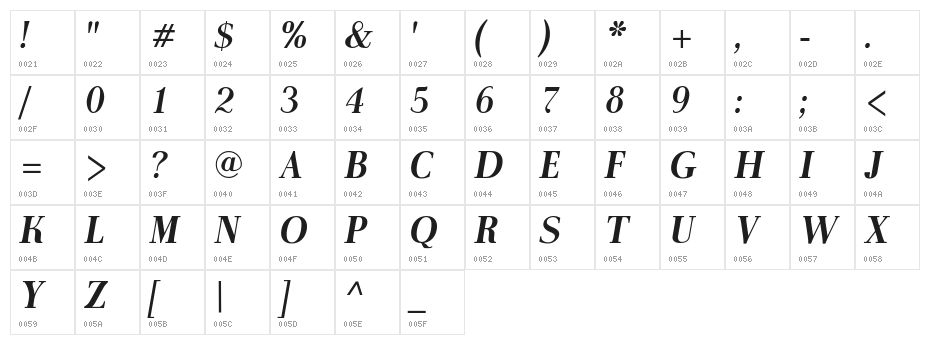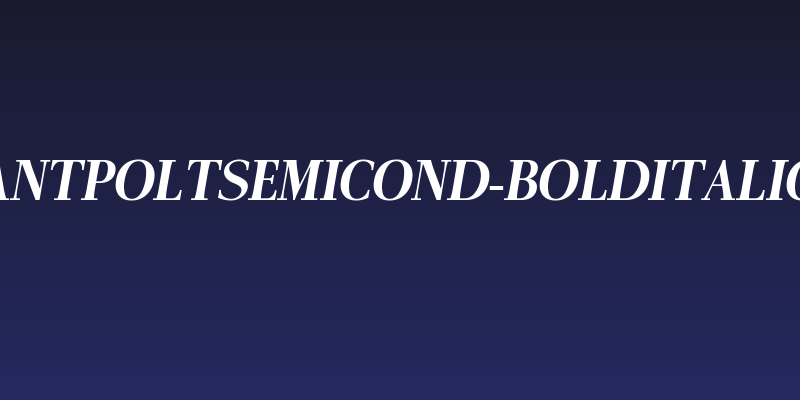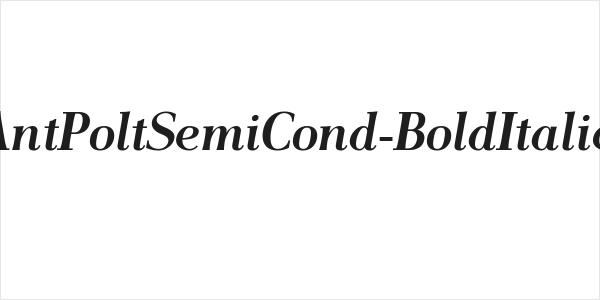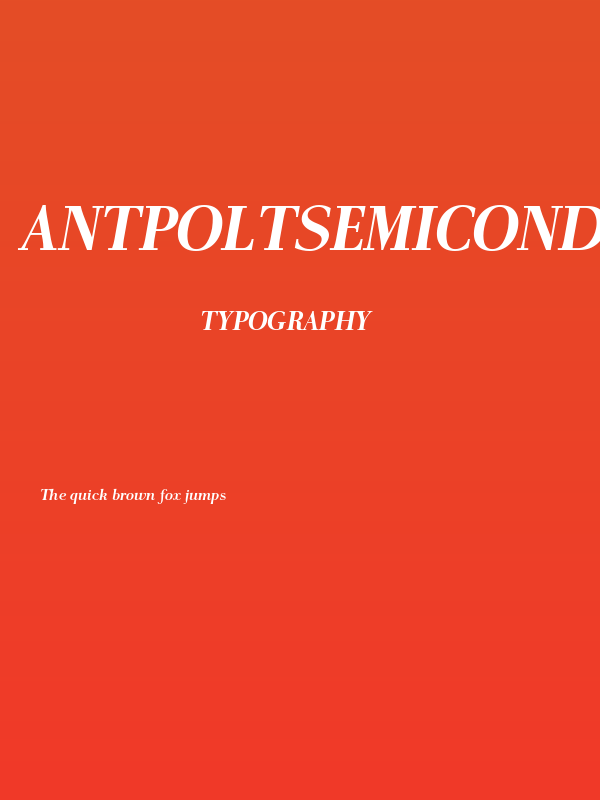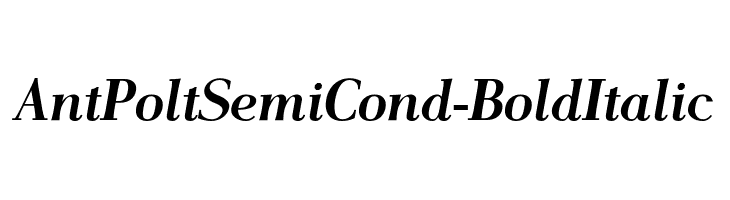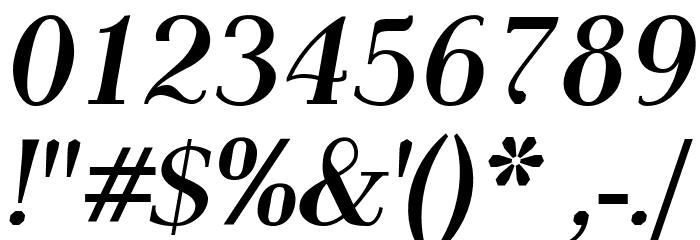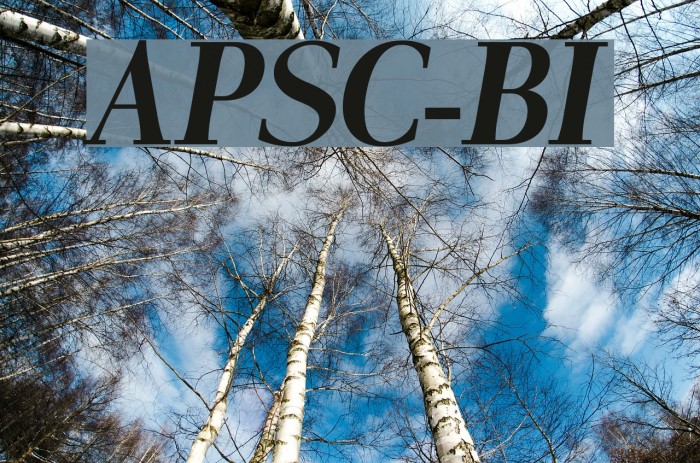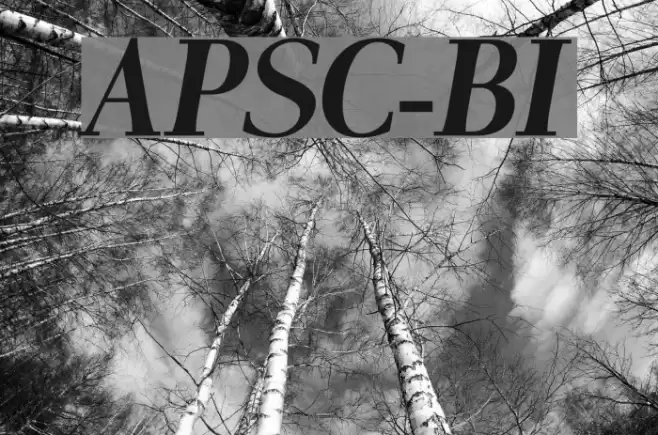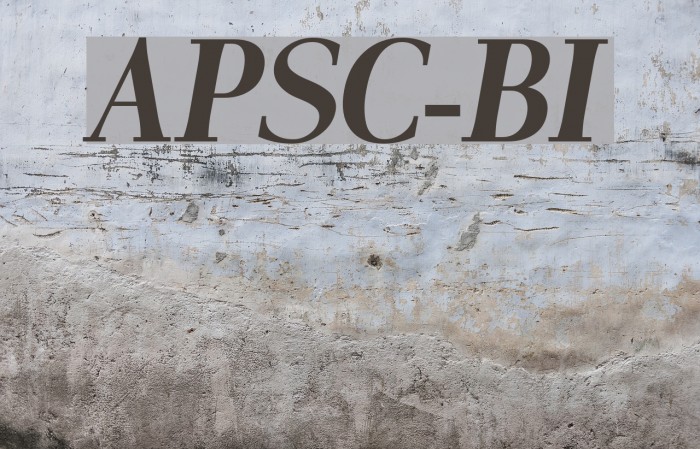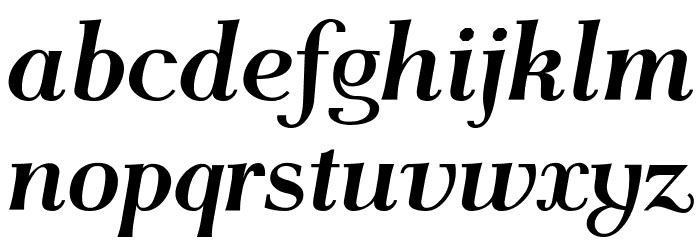
AntPoltSemiCond-BoldItalic Font
AntPoltSemiCond-BoldItalic Description
This font exhibits a classic serif style with a modern twist, characterized by its semi-condensed form and bold italic weight. The letters are elegantly slanted, providing a dynamic and sophisticated appearance. The serifs are pronounced yet refined, adding a touch of tradition to the overall design. The uppercase letters maintain a strong presence, while the lowercase letters offer a smooth and flowing aesthetic. The numerals are well-proportioned, ensuring readability and balance. Special characters are distinct and harmonize well with the rest of the typeface, making it versatile for various applications.
| Use Case | Headlines, Logos, Editorial design |
| Proposed Projects | Ideal for editorial design, book covers, branding, and luxury product packaging. |